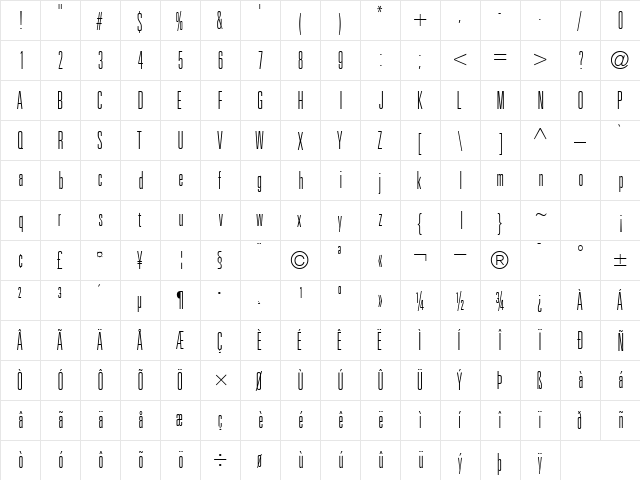
NovaLightUltraCondSSK Regular Font Preview
Design Context for NovaLightUltraCondSSK Typeface
NovaLightUltraCondSSK takes a measured approach to typography — its balanced proportions and neutral character make it a reliable workhorse for both digital and print work. The delicate stroke weight brings airiness and refinement to layouts. The condensed width makes it efficient for tight spaces without sacrificing legibility.